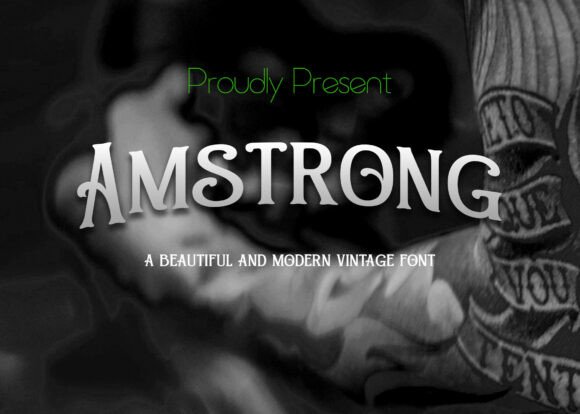
The Timeless Charm of Armstrong Font: A Designer’s Delight
I still remember the design project that led me to discover the Armstrong font. I was working on a branding initiative for a craft liquor company, and I was struggling to find the perfect font that would evoke the vintage charm of their antique labels. That’s when I stumbled upon Armstrong, and it was love at first sight! ✨ The font’s robust curves and artistically crafted characters immediately caught my attention, and I knew I had found the perfect fit.
What I Love About Armstrong
• ✅ Timeless vintage allure: Armstrong exudes a classic, retro-inspired charm that’s perfect for designs that require a touch of sophistication.
• ✅ Robust curves and artistic characters: The font’s unique character design makes it stand out from other vintage-inspired fonts.
• ✅ Versatility: Armstrong is suitable for a wide range of creative projects, from lifestyle designs to branding initiatives.
• ✅ Elegant and sophisticated: The font’s refined design makes it perfect for high-end branding and luxury designs.
While Armstrong is an excellent font, it’s not without its quirks. ⚠️ Some users may find that the font:
• 🤔 Lacks extensive language support: Armstrong may not support certain languages or special characters.
• 🤔 May not be suitable for body text: Due to its decorative nature, Armstrong may not be the best choice for large blocks of text.
The Designer Inspiration Behind Armstrong
Armstrong was inspired by the classic designs of the early 20th century, particularly those found in antique liquor labels. The font’s designer aimed to create a font that would evoke a sense of timeless sophistication and elegance. 💡
Q: What type of projects is Armstrong best suited for?
A: Armstrong is suitable for a wide range of creative projects, including lifestyle designs, branding initiatives, logos, advertisements, and more.
Q: Does Armstrong support OpenType features?
A: Yes, Armstrong supports OpenType features, including stylistic alternates, glyphs, and ligatures.
Q: Can I use Armstrong for body text?
A: While Armstrong is a beautiful font, it may not be the best choice for large blocks of body text due to its decorative nature.